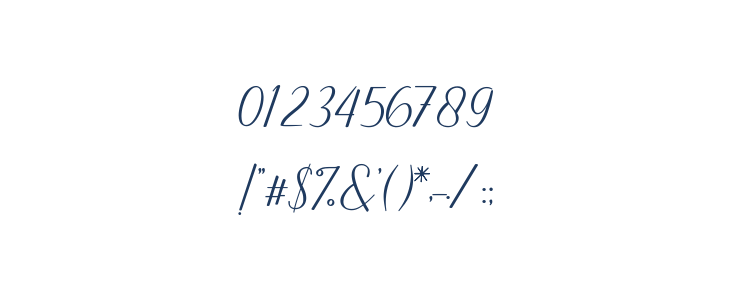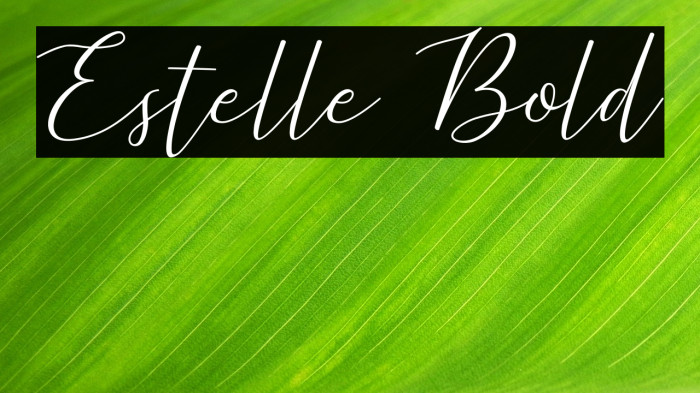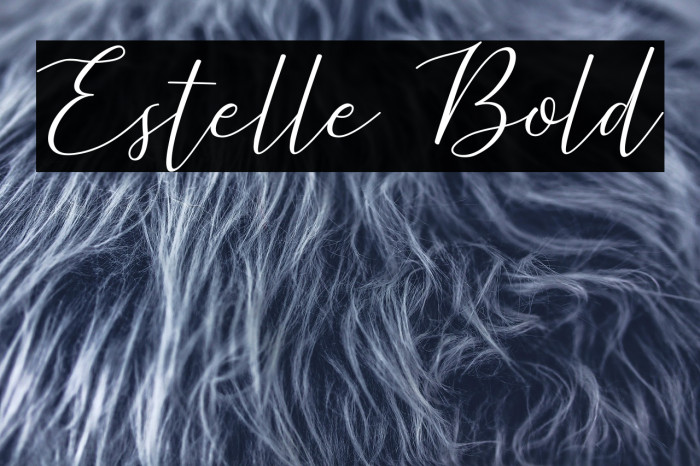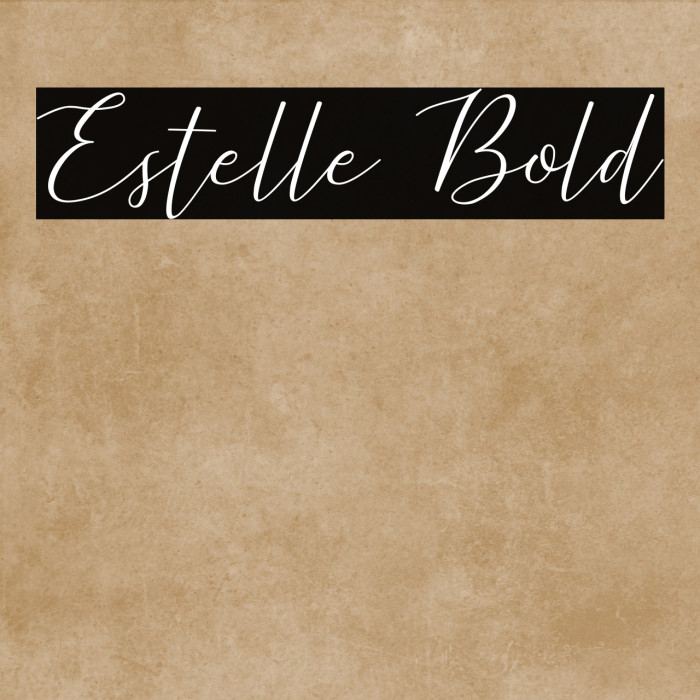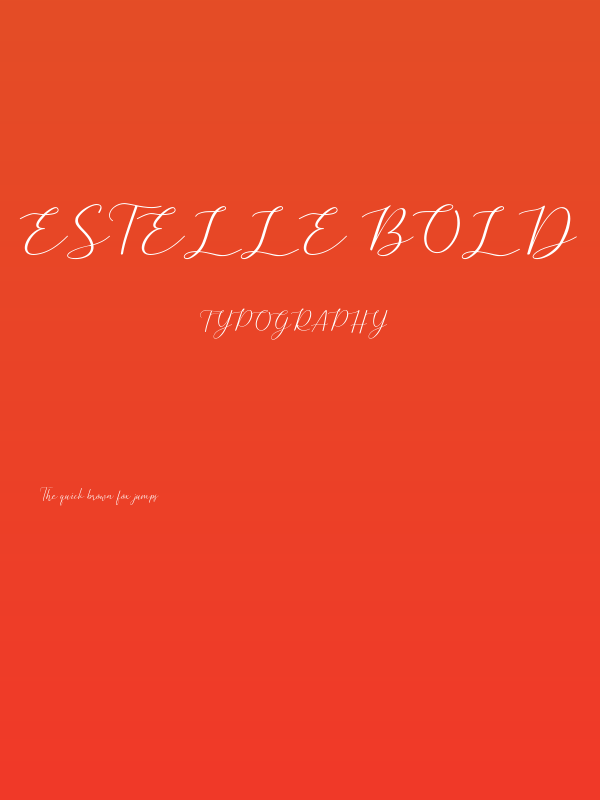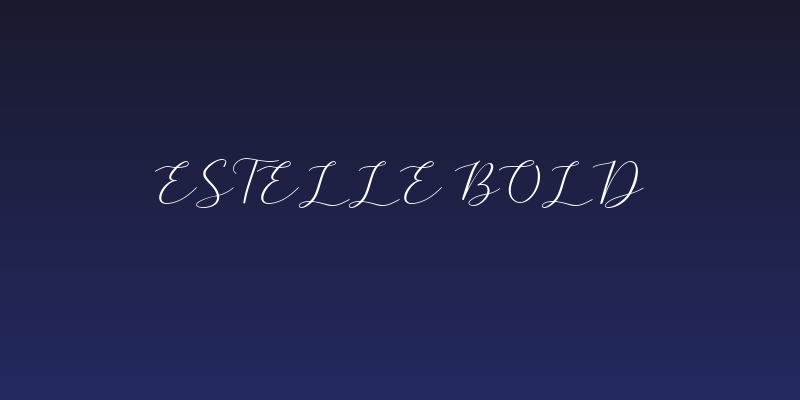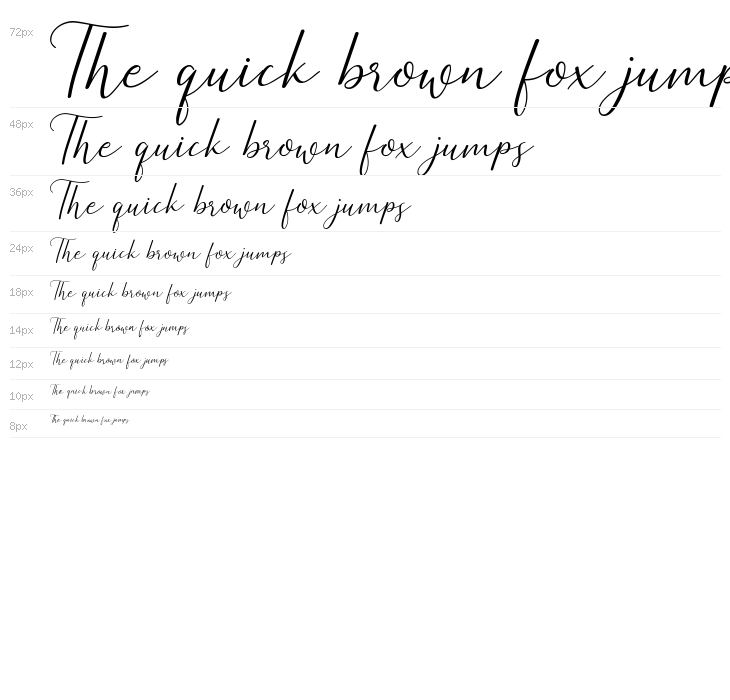
Estelle Bold Font
Estelle Bold Description
This elegant script font features fluid, cursive strokes that convey a sense of sophistication and grace. The uppercase letters are characterized by sweeping lines and delicate curves, while the lowercase letters maintain a consistent flow, enhancing readability. The numerals are designed with a similar flair, ensuring they complement the overall aesthetic. Special characters are thoughtfully crafted to match the font's refined style, making it suitable for a variety of applications. The font's balance between decorative elements and legibility makes it ideal for formal invitations, branding, and editorial design.
| Use Case | Invitations, Branding, Editorial Design |
| Proposed Projects | Ideal for wedding invitations, luxury branding, editorial design, and elegant stationery. |